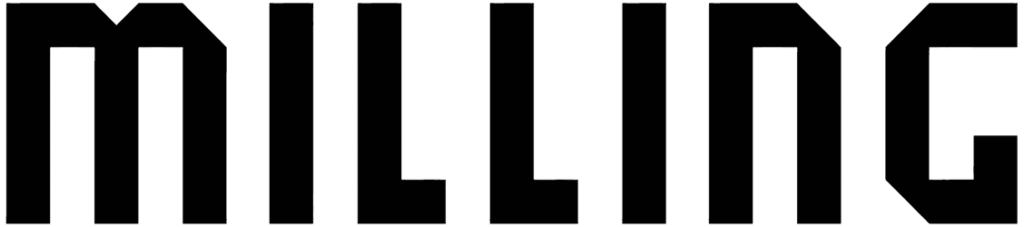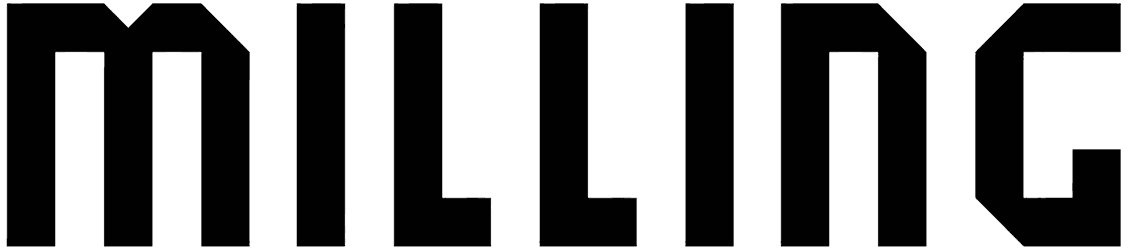
Milling Font
Designed byBas Sjoerdsma
It could take days to look at our geometrical fonts, but you know what? It’s going to be worth it!!! Of course, you can just take Milling and run away, but aren’t you gonna be thinking of all the other modern options you could have tried?
We can promise you, Milling isn’t going to take it personally if you check out our other all-caps fonts. You’re going to download it anyway for your digital projects, aren’t you? Yeah, you are!